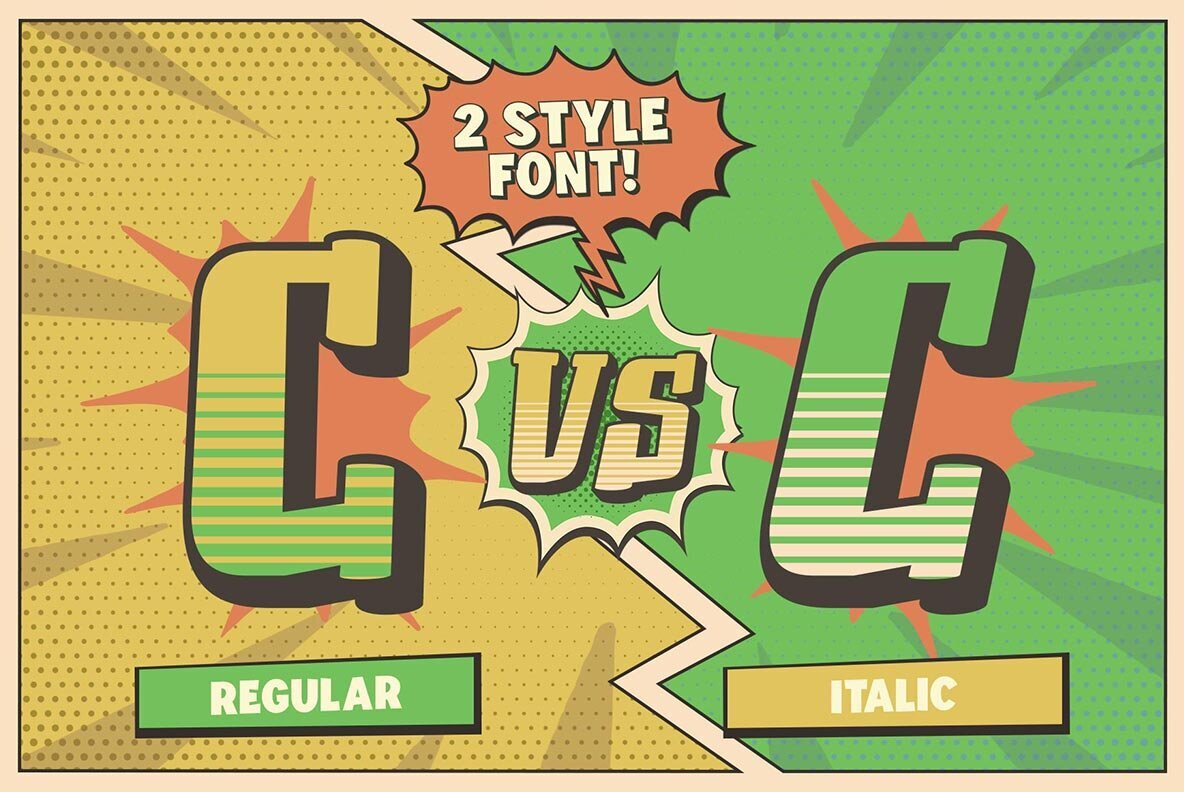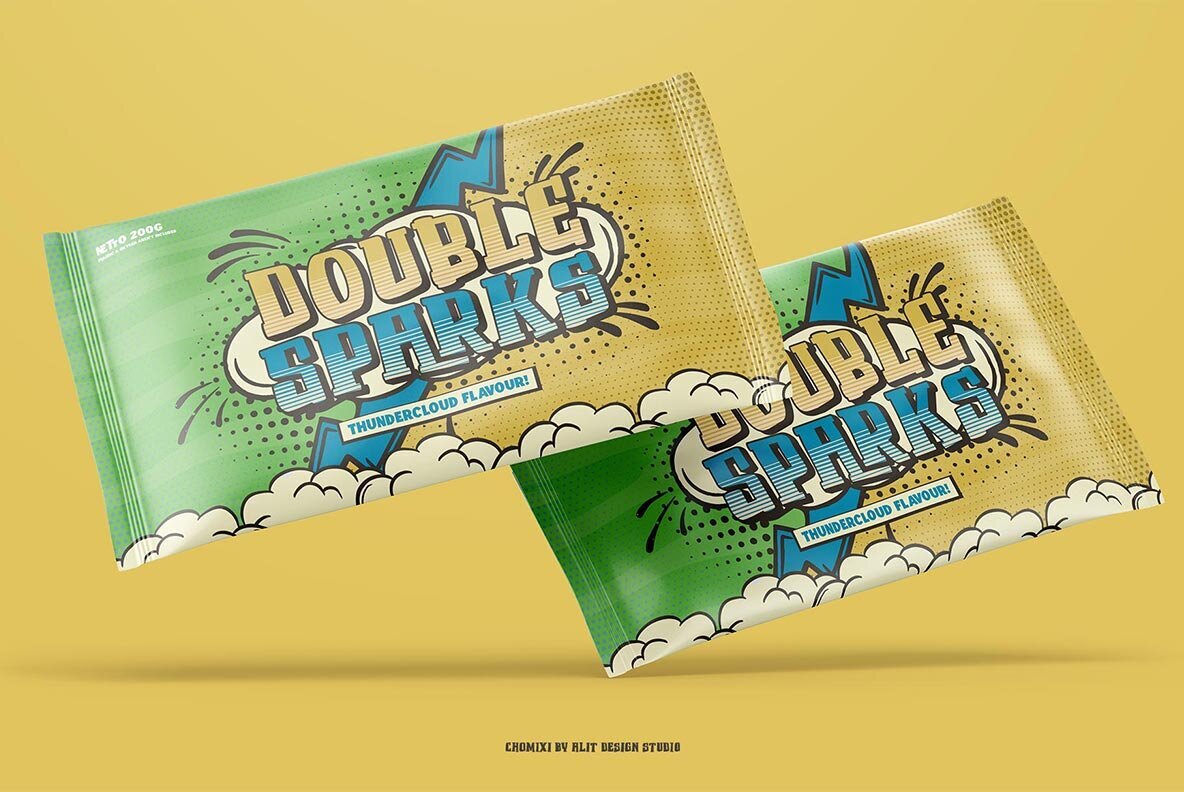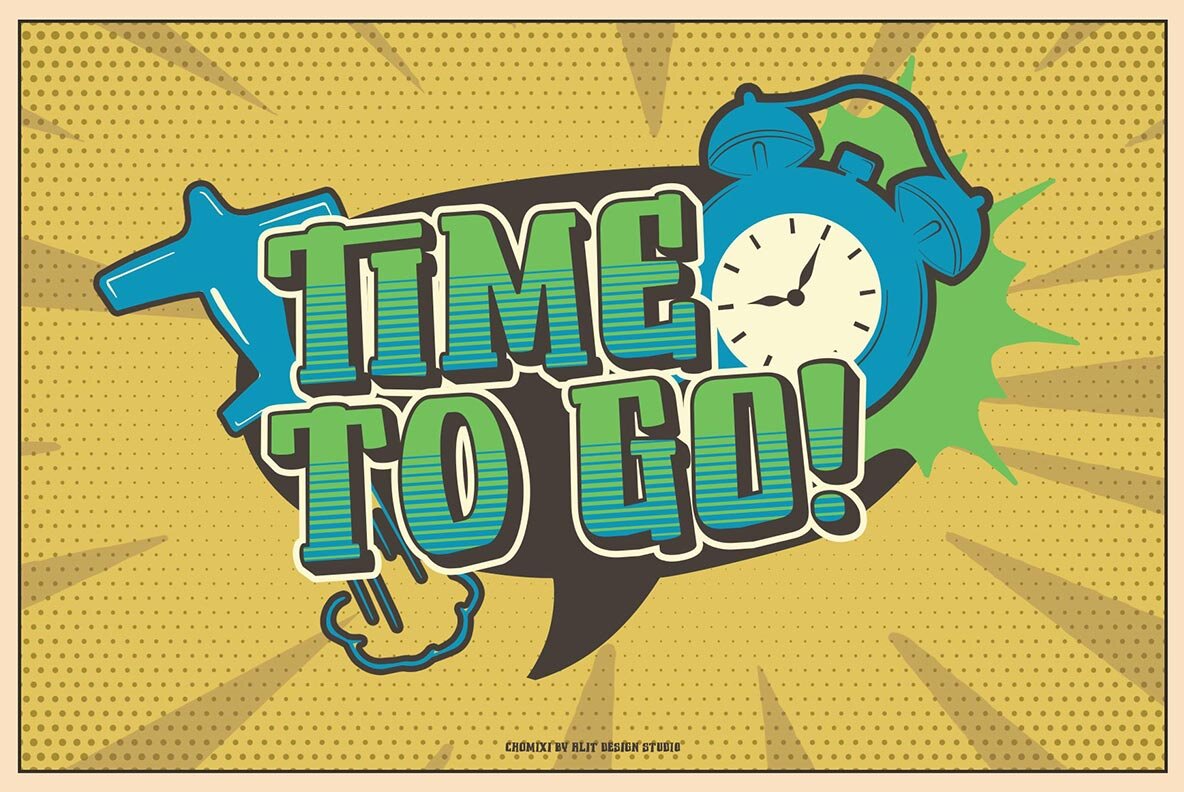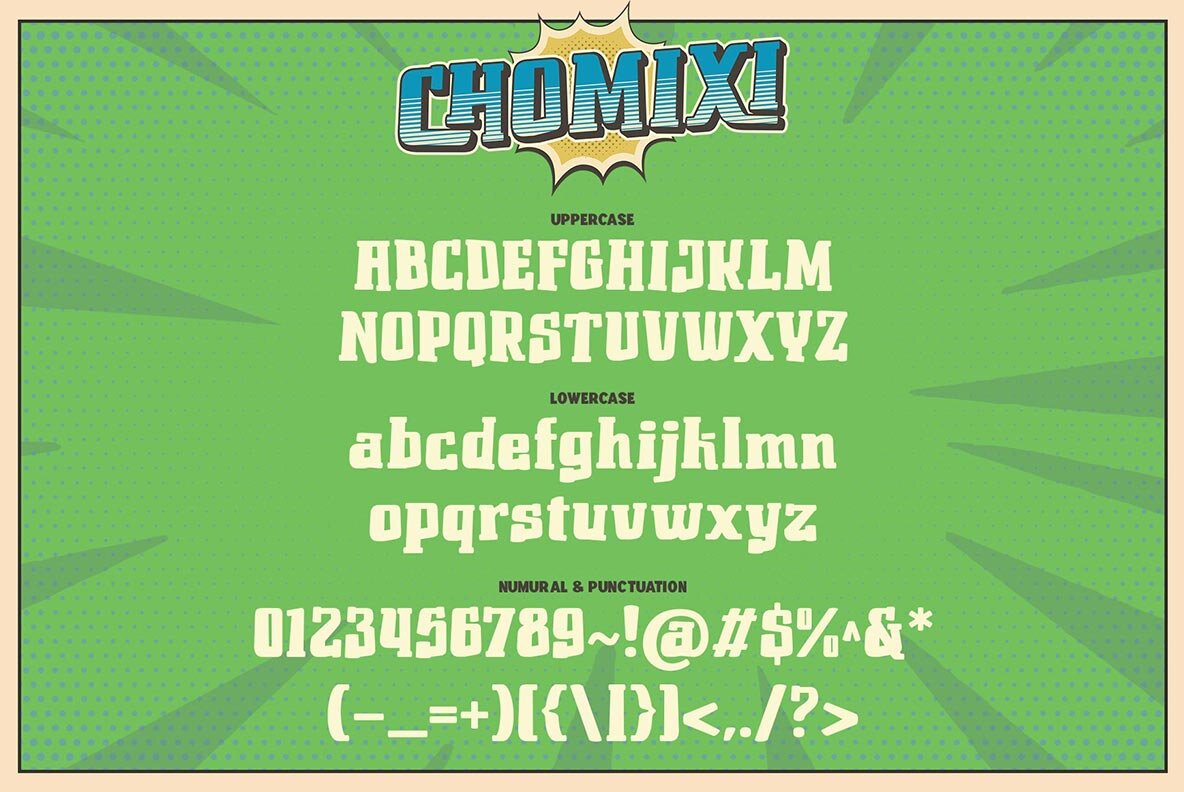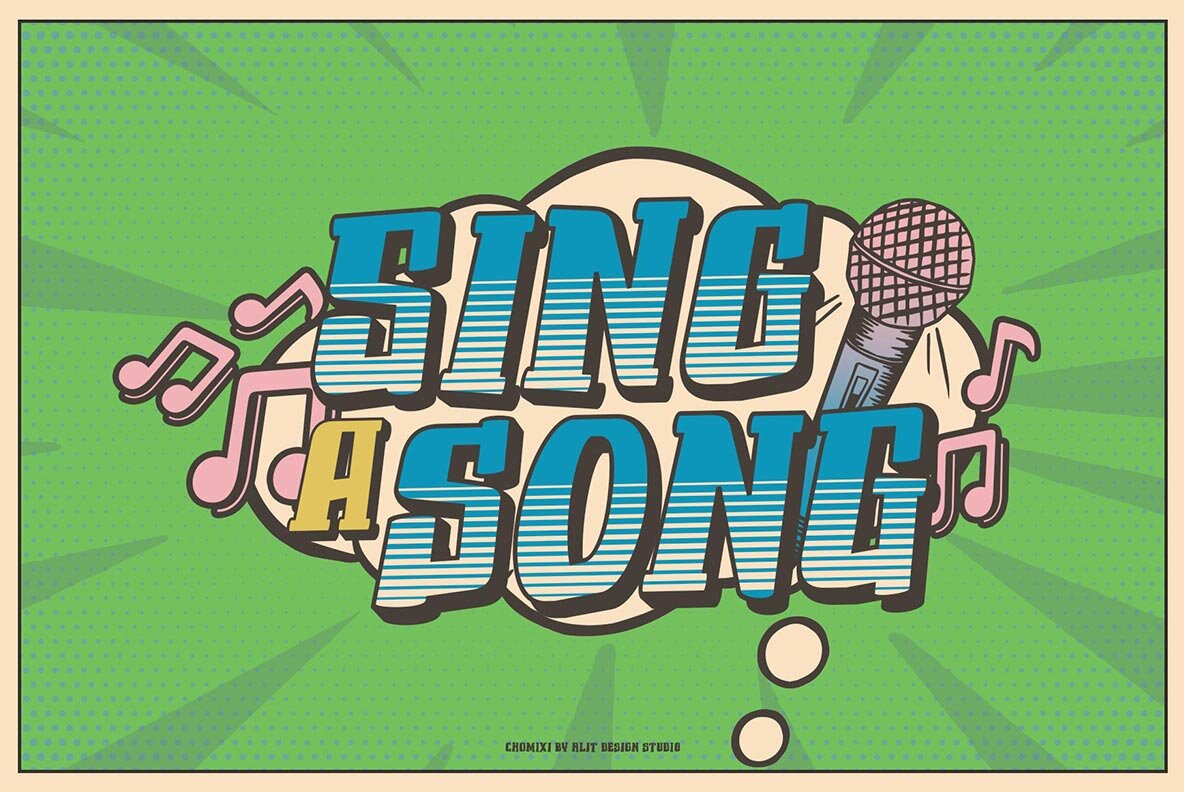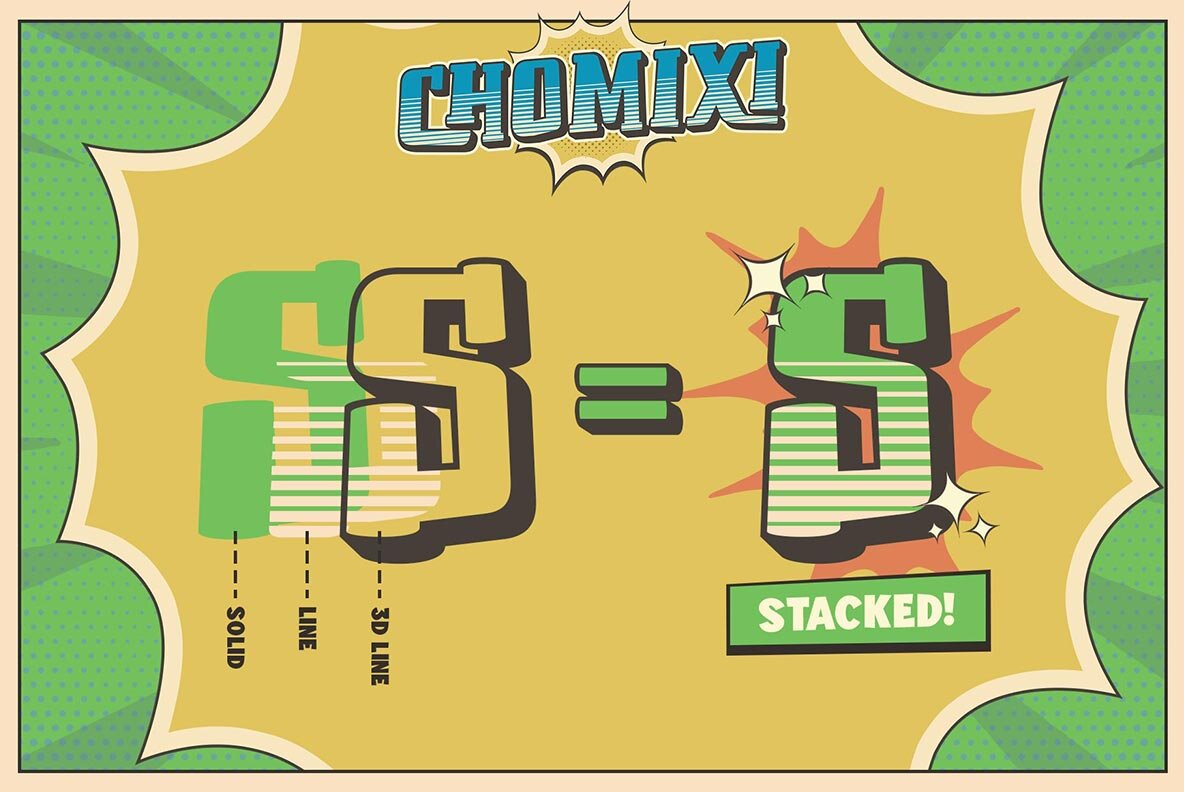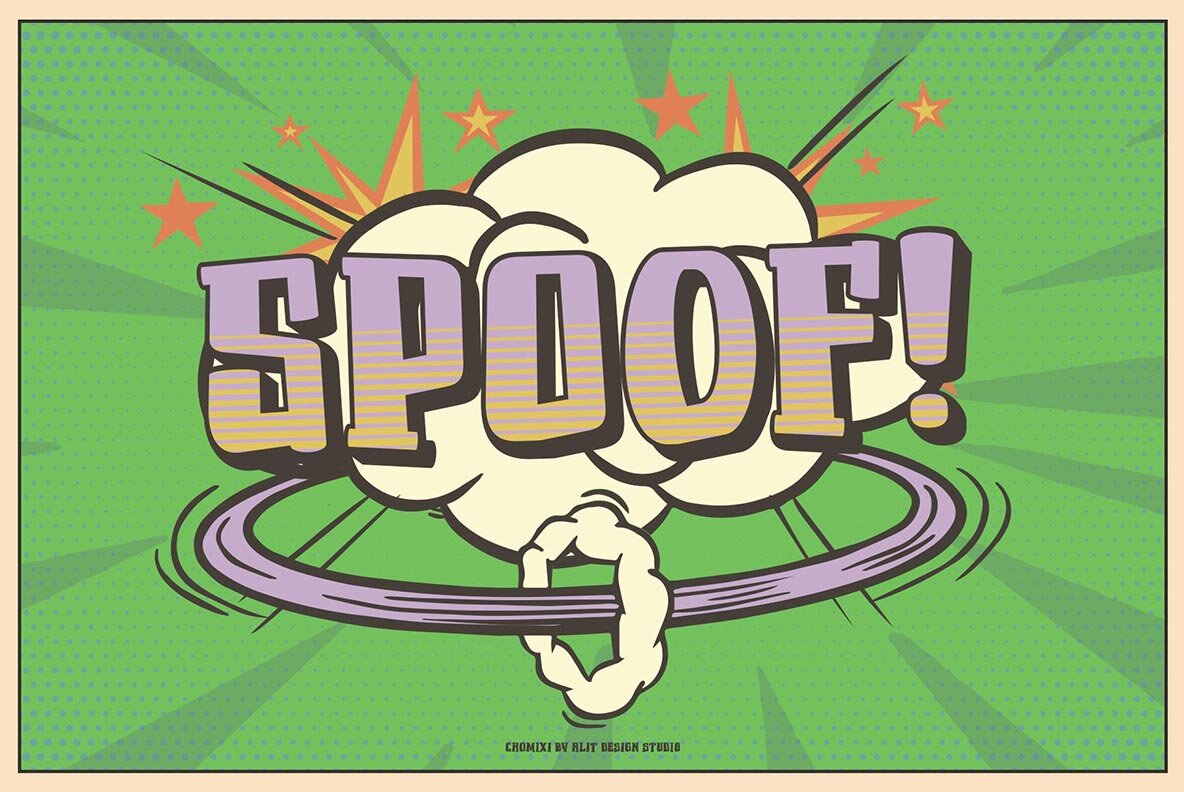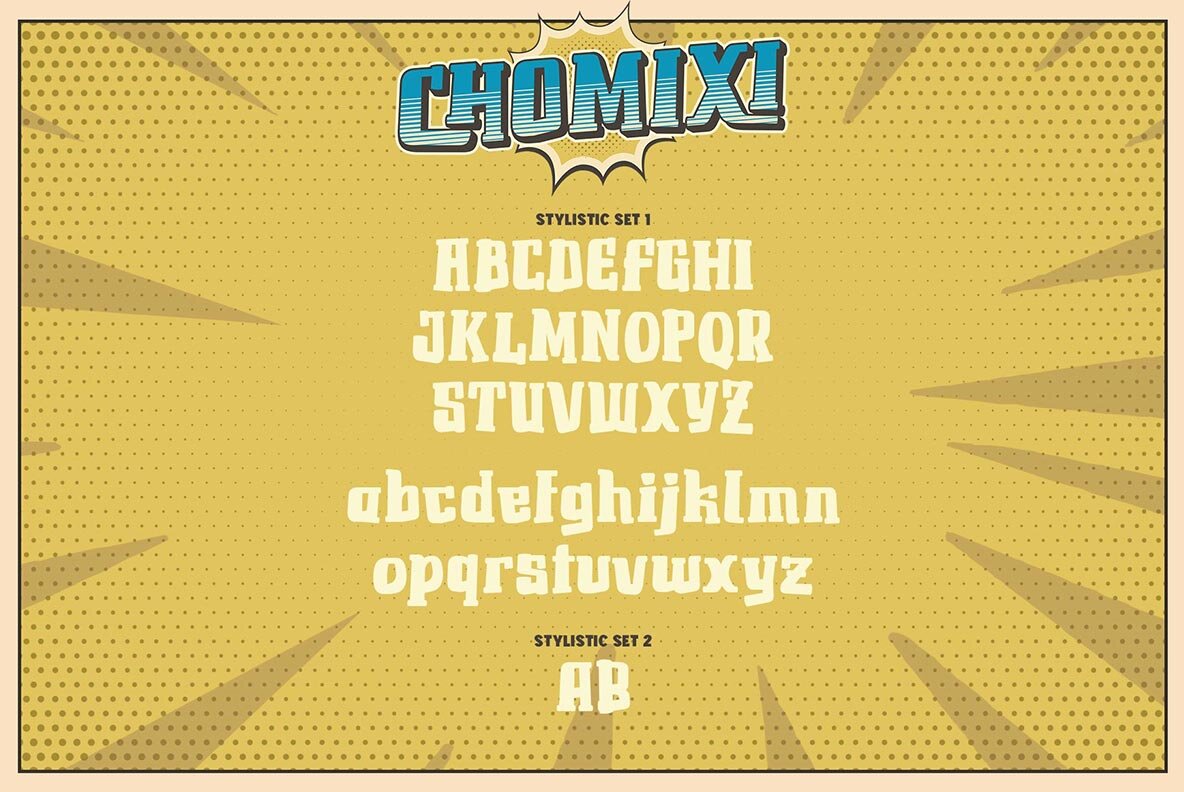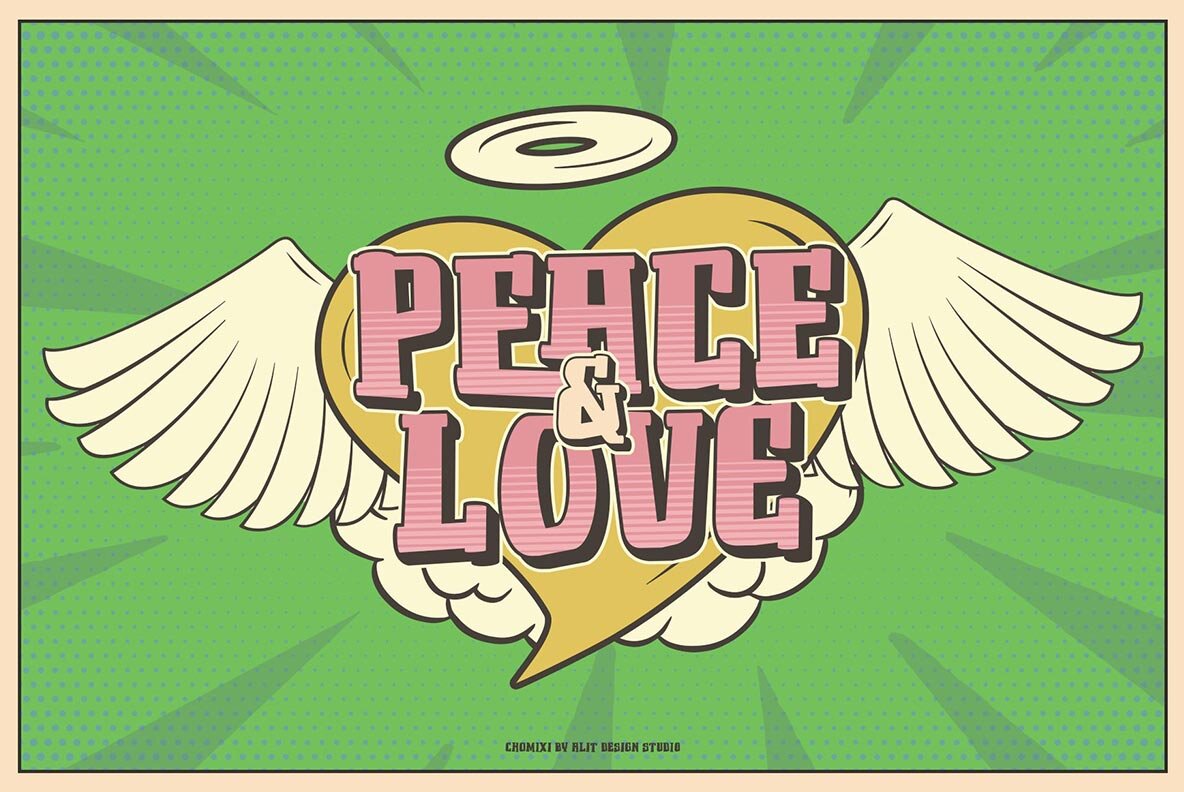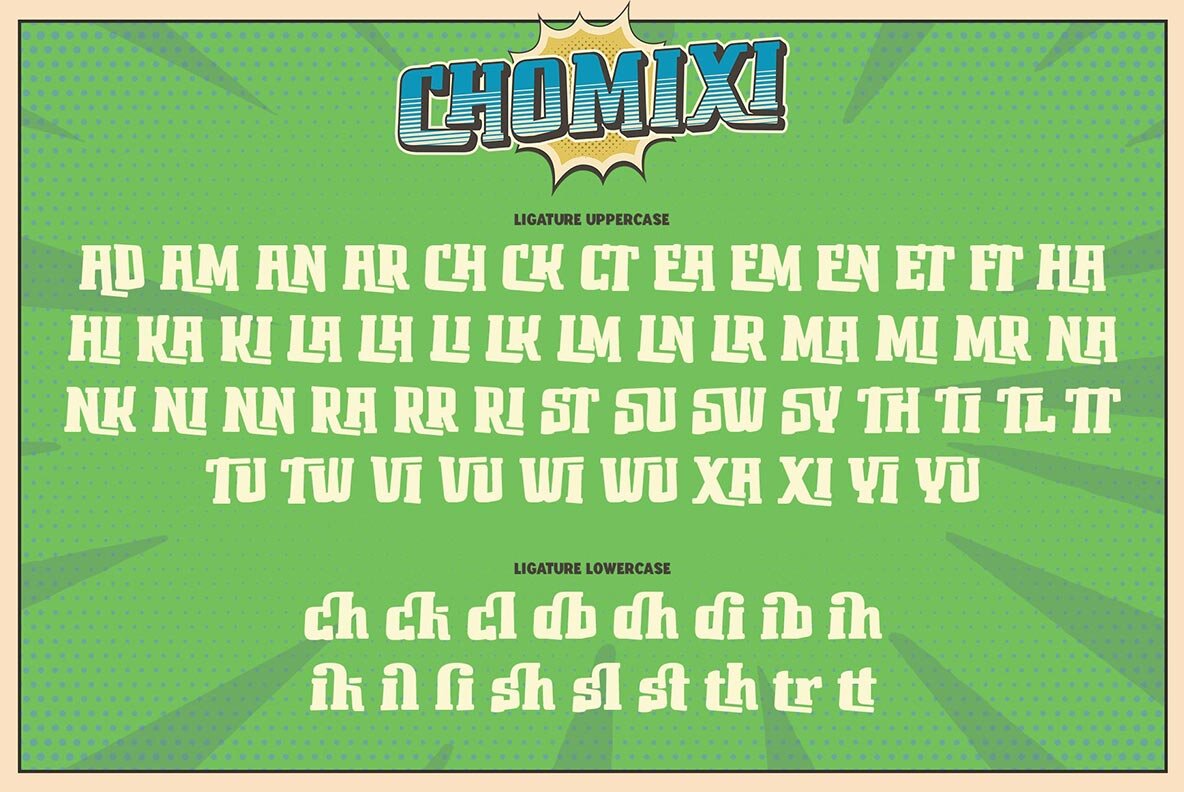
Chomixi Font
Presenting the ️CHOMOXI Comic Typeface️ by alitdesign.
The CHOMOXI Comic Typeface is inspired by the style of letters in comics that have less serious and fun characters. The lettering of CHOMOXI Comic Typeface is a serif with display font characters which gives a fun and design impression for retro pop art. The CHOMOXI Comic Typeface has 2 style font regular and brushed style and has 2 characters solid and 3D. The CHOMOXI Comic Typeface is perfect for creating designs with non-serious concepts, designs for children, book headers, and of course for text on comics.
The CHOMOXI Comic Typeface also gets a bonus character of 230 Comic-themed illustrations that make creating designs even easier. Simply by downloading The CHOMOXI Comic Typeface creating a Comic and non formal themed design is very quick and easy.
The CHOMOXI Comic Typeface contains 579 + 230 bonus glyphs with many unique and interesting alternative options.